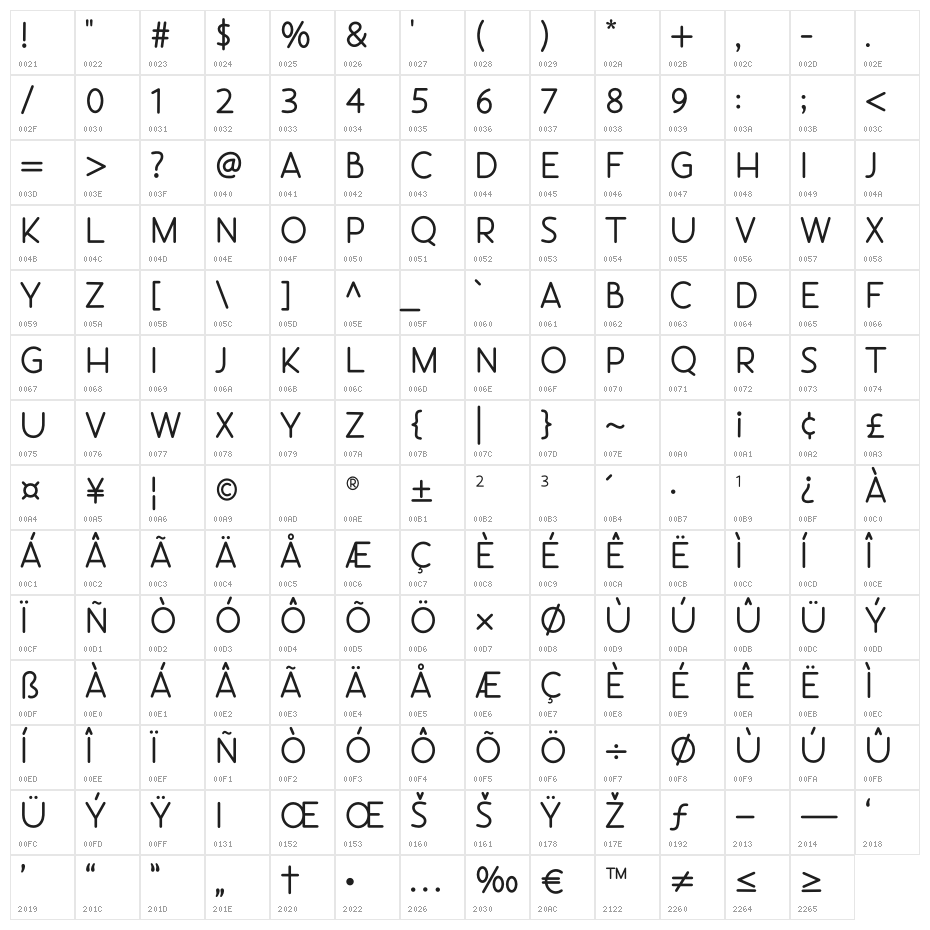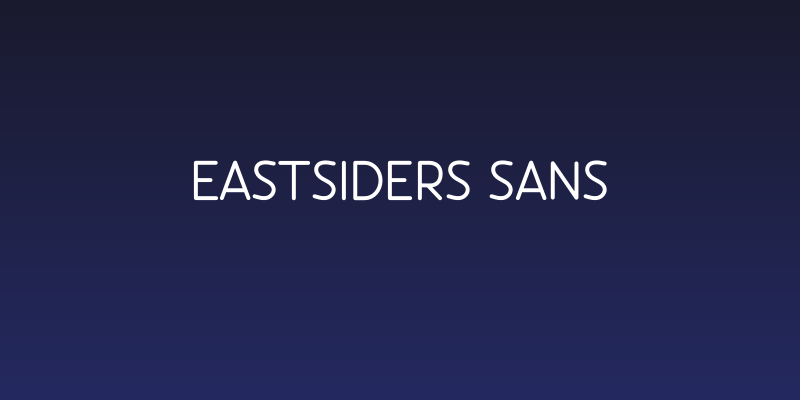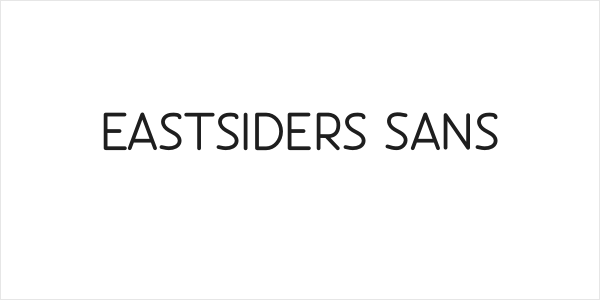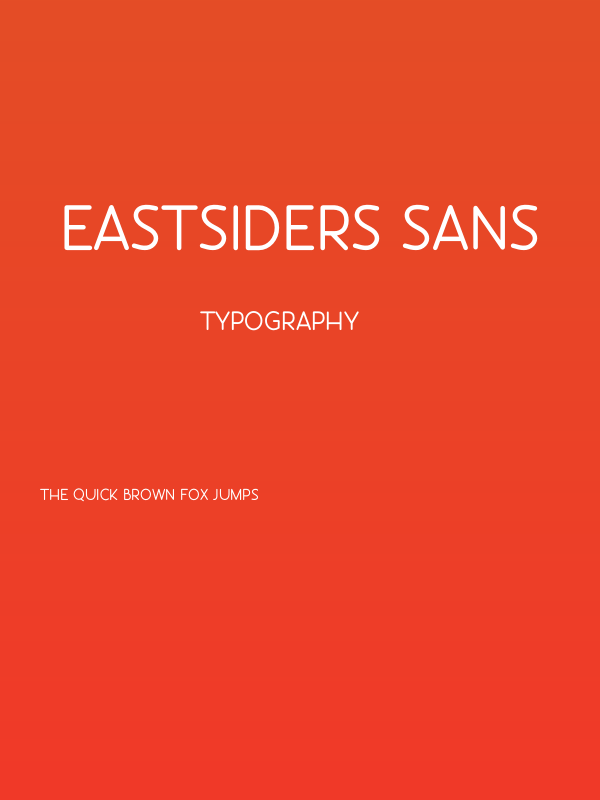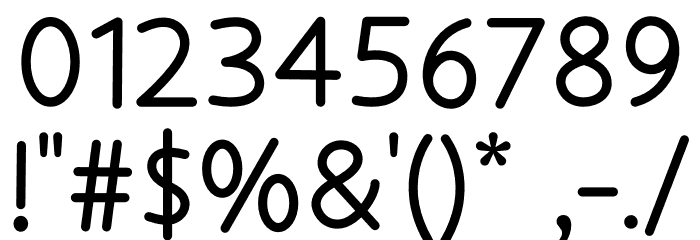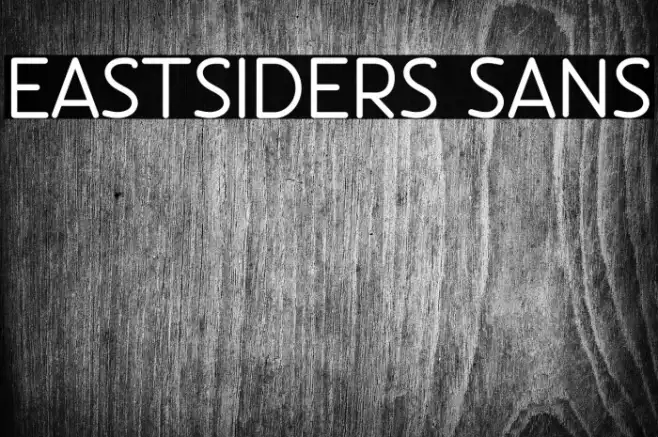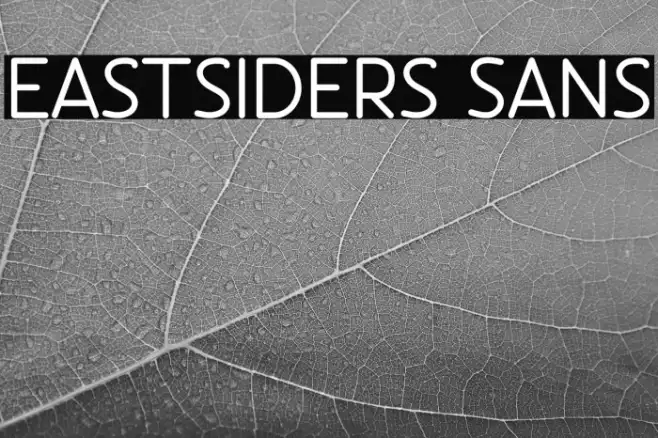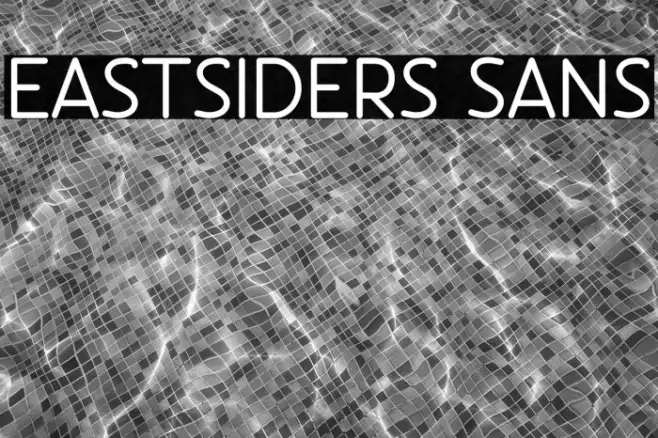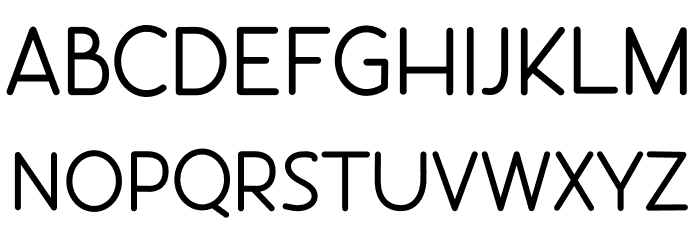
Eastsiders Sans Font
Eastsiders Sans Description
This font features a clean and modern sans-serif style with smooth, rounded edges. The characters are evenly spaced, providing a balanced and harmonious appearance. The uppercase and lowercase letters maintain a consistent height, contributing to a uniform look. The numerals are clear and easily distinguishable, making them suitable for various applications. Special characters are well-defined, enhancing the font's versatility. Its simplicity and readability make it ideal for both digital and print media.
| Proposed Projects | Ideal for branding, web design, advertising, and editorial layouts due to its clarity and modern aesthetic. |